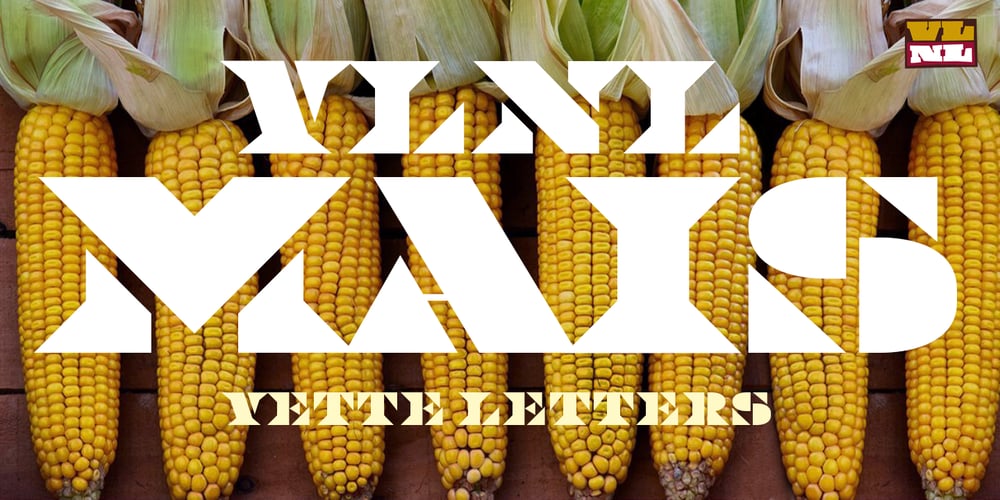
VLNL Mais
VLNL Mais font
VLNL Mais Font Family was designed by Donald Beekman and published by VetteLetters. VLNL Mais contains 1 styles and family package options. The design of VLNL Mais started out as a thought experiment – “How would it look if you dressed up FuturaBlack in LatinWide serifs?” DBXL drew up the first sketches on graph paper in 2014. Although the concept looked promising enough, it ended up dormant in a desktop folder. To be resurfaced recently when covid-19 started spreading and we were asked to all stay home. The final design ended up with a distinct latino flavour due to the long spikey serifs. They look like tortilla chips. And as maize is the main ingredient in many South-American and specifically Mexican dishes – tortillas, burritos, nachos, tamales, tacos – a name was quickly found. VLNL Mais was designed by DBXL, and can be used for logos, headlines, flyers or posters (and not just for Mexican restaurants). It can be found in the VetteLetters vegetable section.